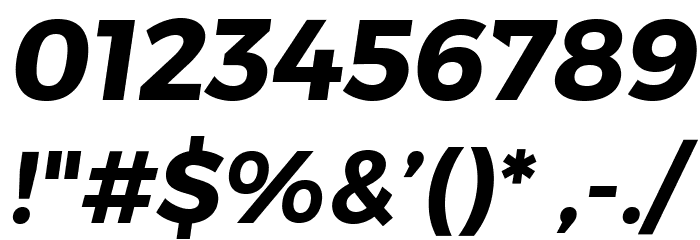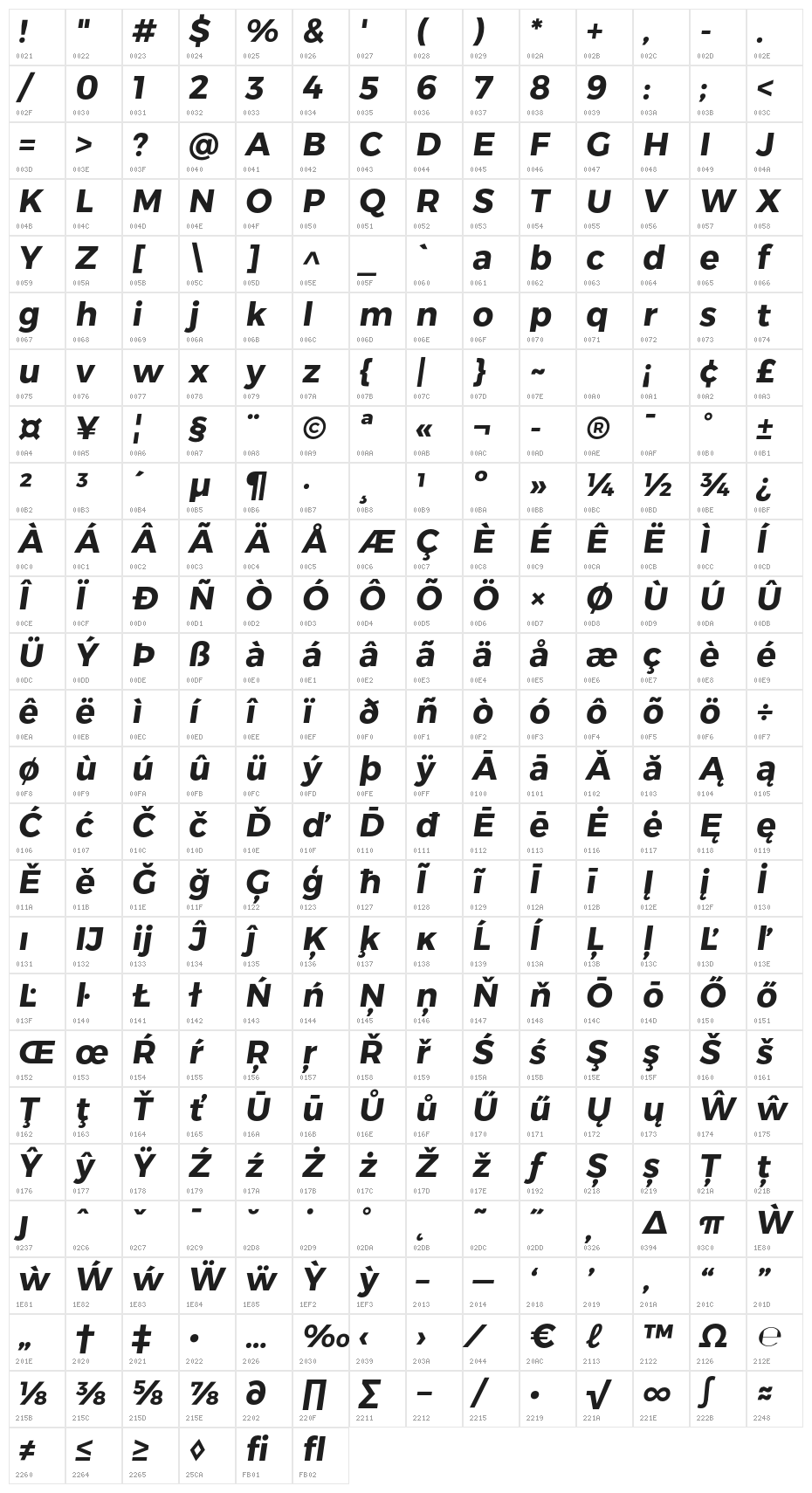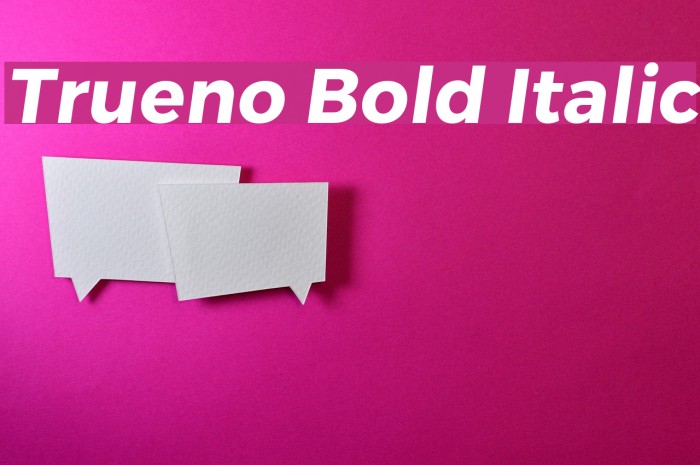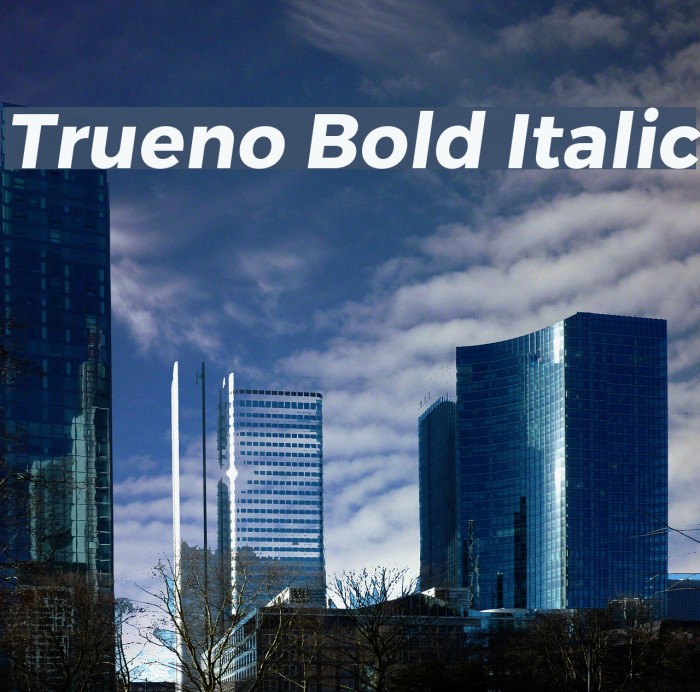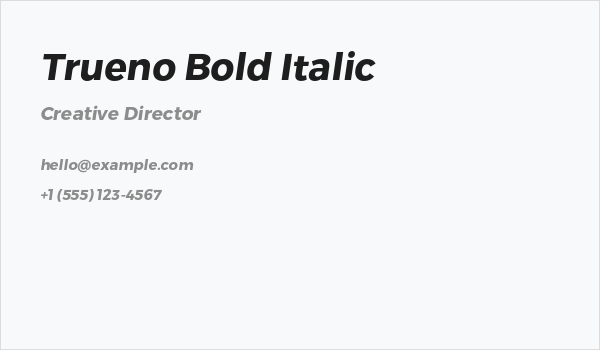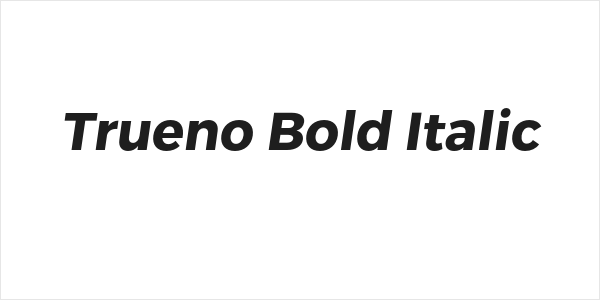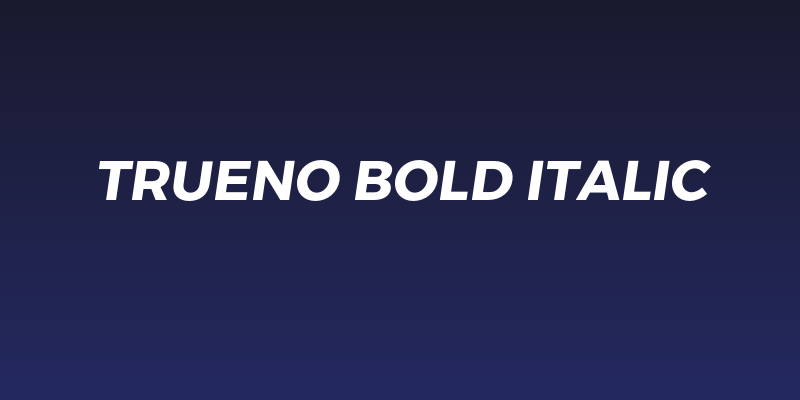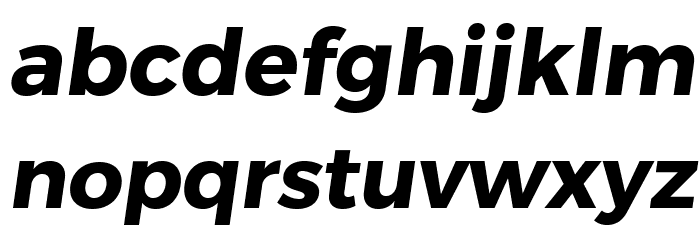
Trueno Bold Italic Font
Trueno Bold Italic Description
This font exhibits a bold and italicized style, characterized by its strong presence and dynamic slant. The uppercase and lowercase letters are well-proportioned, with a consistent stroke width that enhances readability. The numerals are clear and distinct, making them suitable for various applications. Special characters are included, maintaining the font's cohesive appearance. The overall design is modern and versatile, suitable for both digital and print media. Its bold weight and italic style make it ideal for emphasizing text, while the sans-serif design ensures clarity and simplicity.
| Proposed Projects | Ideal for branding, advertising, headlines, and digital content where a strong and modern impression is needed. |